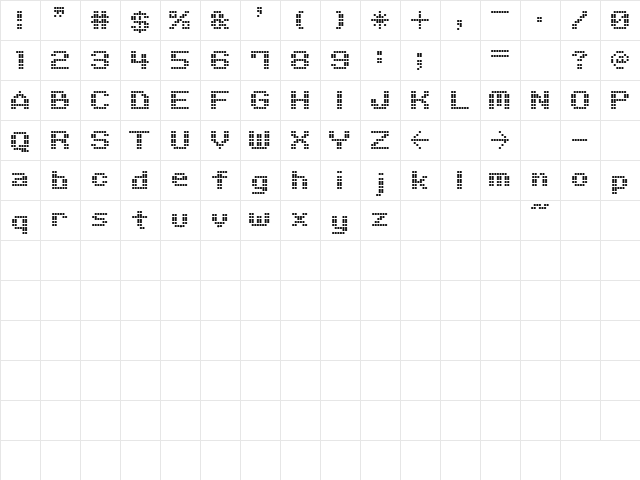
M06_QUADRA Regular
Design Context for M06_QUADRA Typeface
M06_QUADRA takes a measured approach to typography — its balanced proportions and neutral character make it a reliable workhorse for both digital and print work.